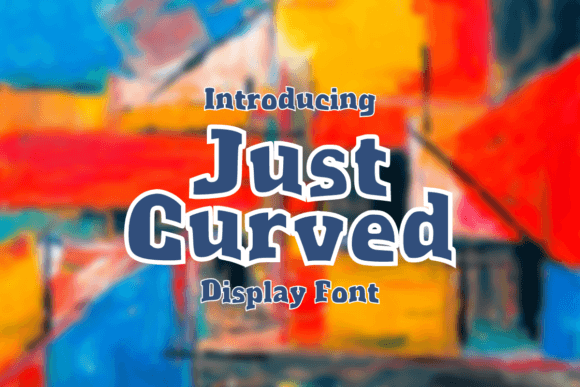
Just Curved Font
Journey into the realm of typographic artistry with Just Curved Font, a display font that exudes individuality and charm. Its playful curves and bold strokes ignite a sense of whimsy, making it the perfect choice for projects seeking an informal yet distinctive flair.
Unleash your creativity and let Just Curved Font dance across your designs, transforming them into captivating works of art. It's a versatile performer, seamlessly adapting to a myriad of projects, from invitations and cards to logos and headlines. Its enchanting presence will elevate your designs, leaving a lasting impression on your audience.
Picture a world where letters leap off the page, captivating the eyes with their unique personalities. Just Curved Font possesses this magical ability, weaving a tale of visual delight with every word it forms. Its quirky nature sparks conversation, while its bold strokes command attention, ensuring your messages are heard loud and clear.
Step into a world of endless possibilities with Just Curved Font. Its adaptability knows no bounds, making it the ideal companion for a vast array of creative endeavors. Let your imagination soar as you witness ordinary designs transform into extraordinary expressions of your artistic vision.
With Just Curved Font as your creative ally, you'll embark on a journey of typographic exploration, discovering new depths of expression and leaving a trail of visual enchantment in your wake. So, embrace the allure of the extraordinary and let Just Curved Font guide you towards design greatness.